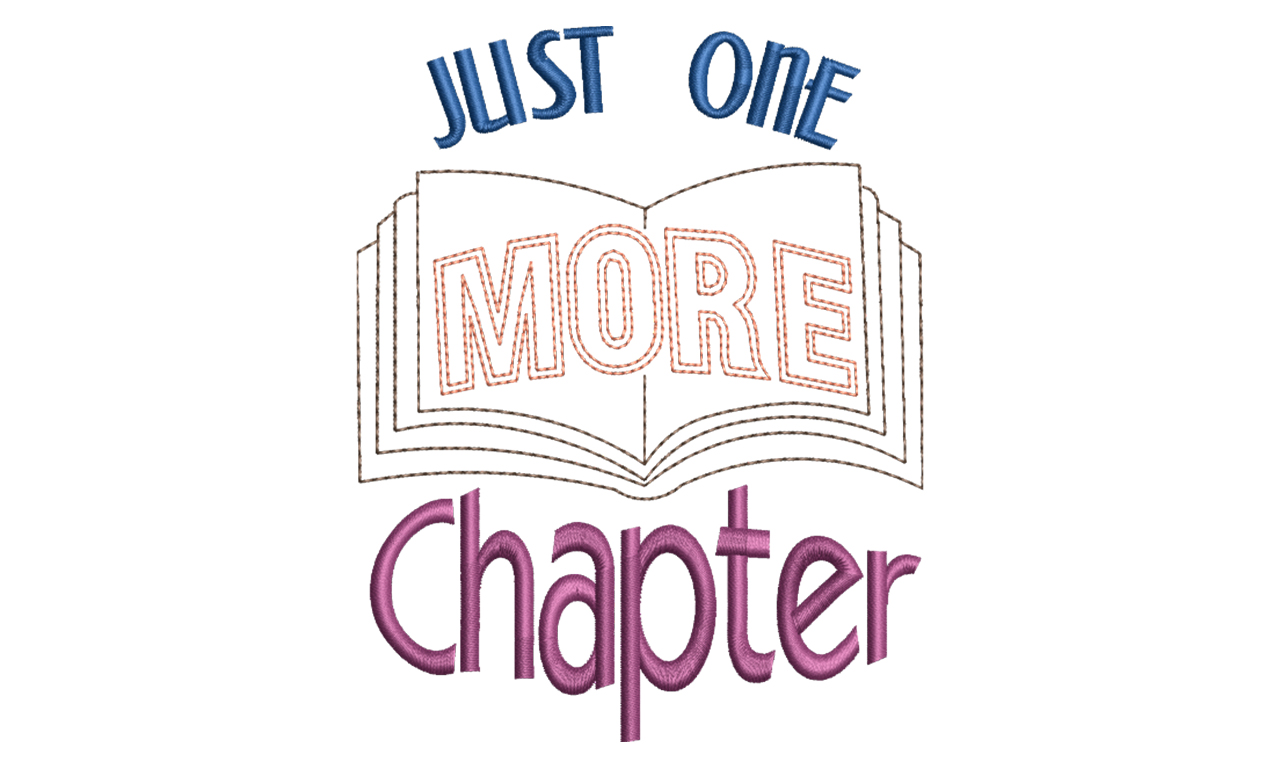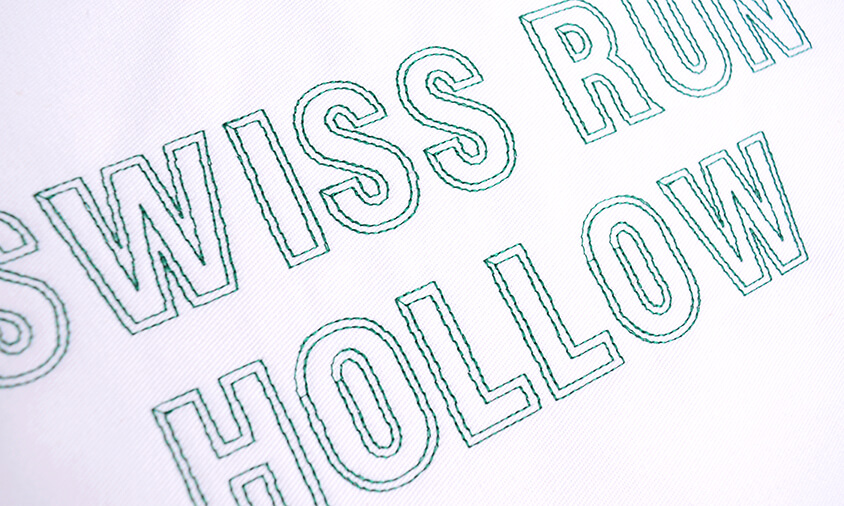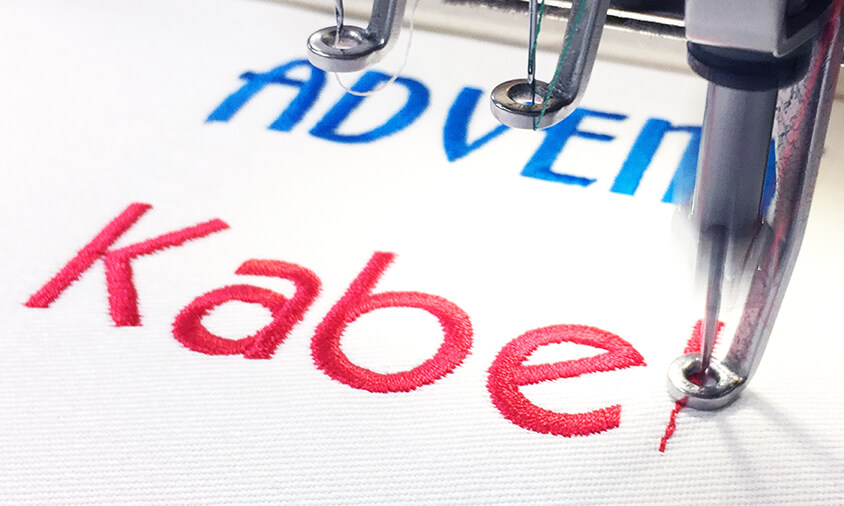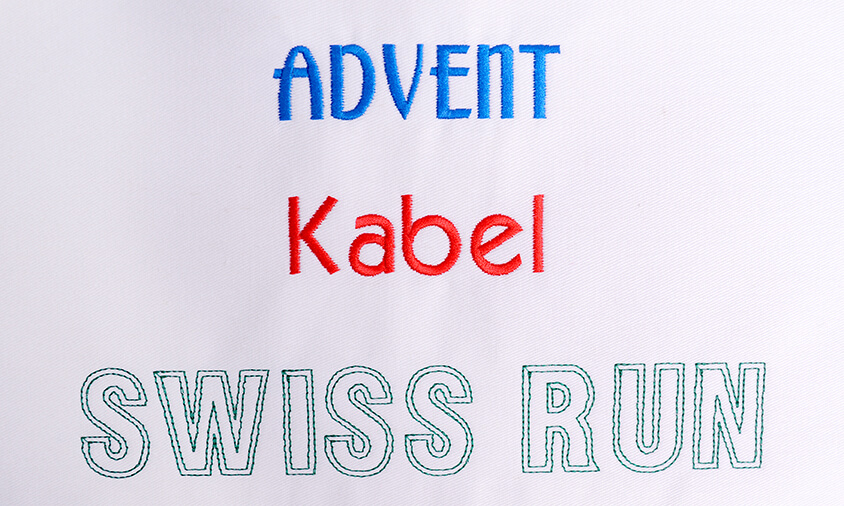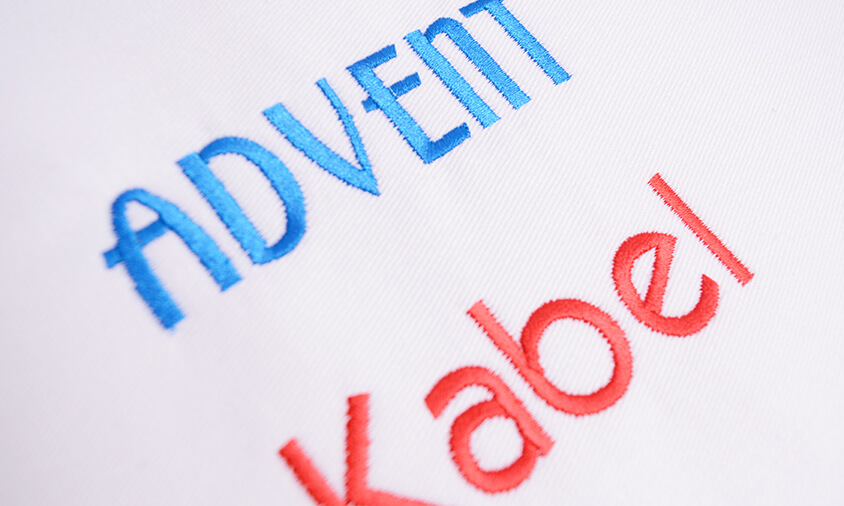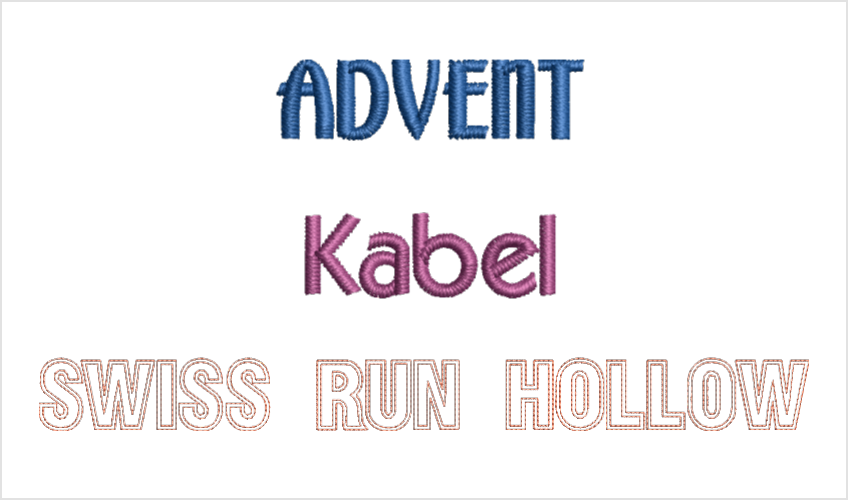
Font Pack #7 – Block
This “go-to” font style is extremely versatile and perfect for a large variety of projects.
Block fonts are easy to read and this one is available in bold, thin, fancy and outlines. It includes a traditional block, modern block as well as an outline block.
It works on a number of stitch types and looks great when creating an embossed stitch type look, giving your project a unique identity.
Advent
This Sans-Serif uppercase block font will give you a contemporary look. Great to use for wall art and backpacks. This is a medium size font and should not be used above 2 inches (50mm) unless you turn on Auto-Split or Embossed Satin.
Min: 0.31in, 8mm | Max: 0.79in, 20mm
Kabel
Kabel will give you a book print look. It’s readable at a small size of 0.25 inches (6mm). It looks great when used with the circle baseline to give a curved look to your project’s fonts.
Min: 0.31in, 8mm | Max: 0.98in, 25mm
Swiss Run Hollow
An outlined font that can be used in many projects. It’s a run stitch and great to use when you want a hand-stitched look. It also works good for large size fonts up to 4 inches (100mm). In order to retain the hand-stitch look, this font should be stitched as digitized and not stitched as closest join. It is uppercase only and is a fun font to break apart in the Creator or Digitizer levels and play with adding different outline lines and multiple colors.
Min: 0.98in, 25mm | Max: 3.94in, 100mm